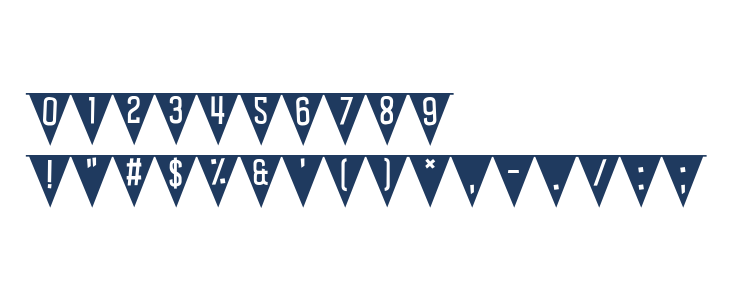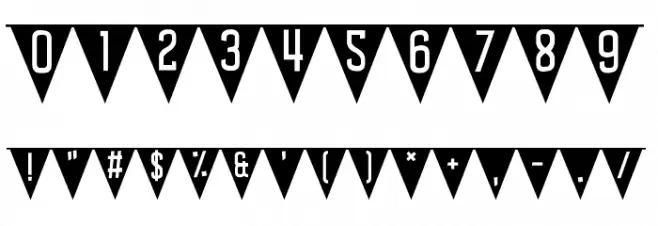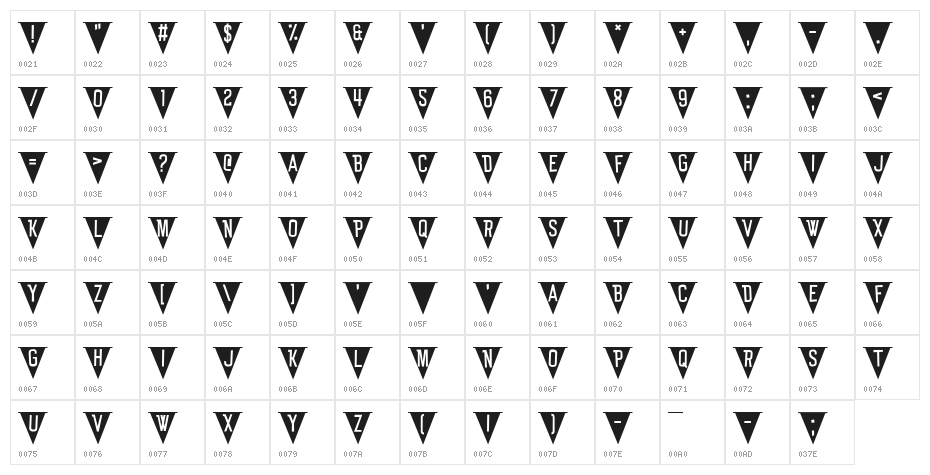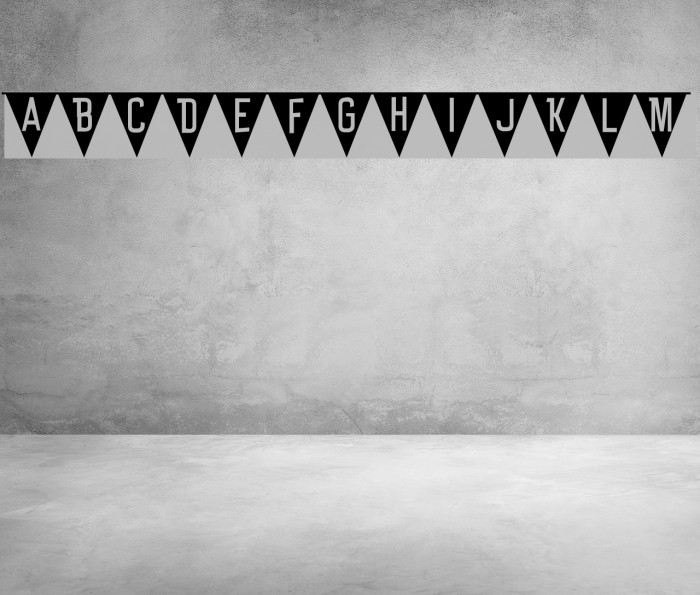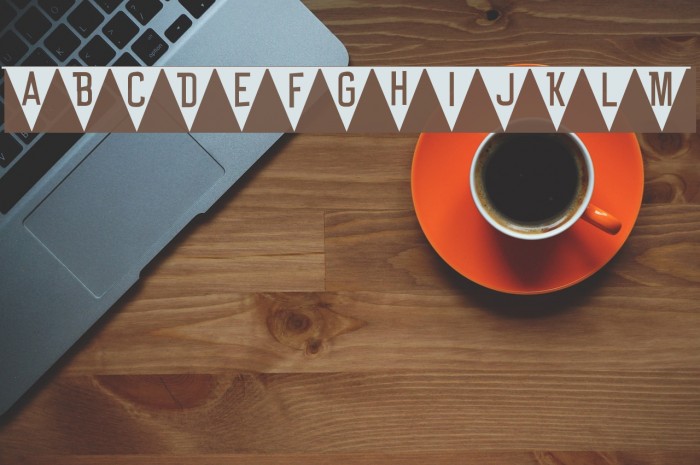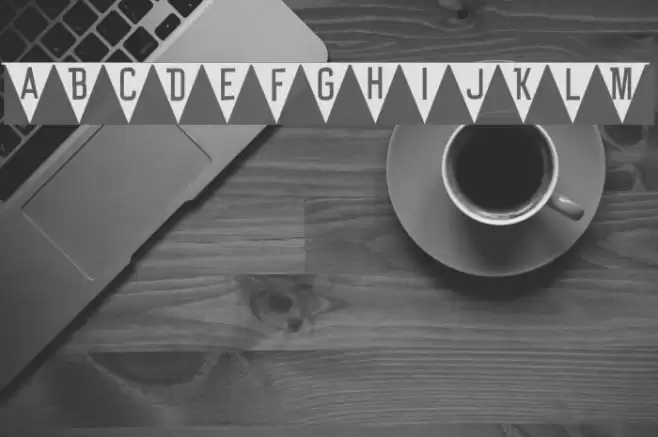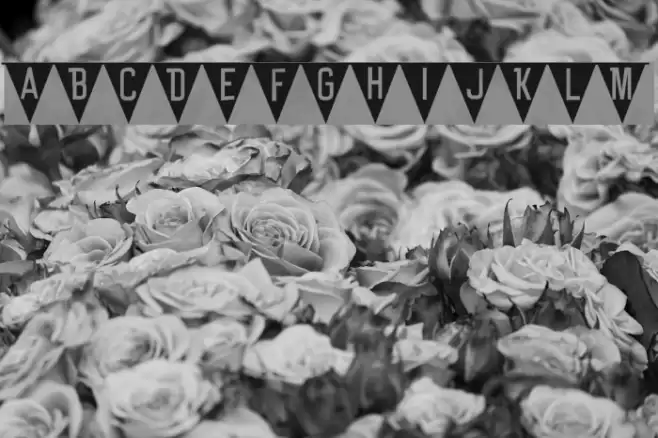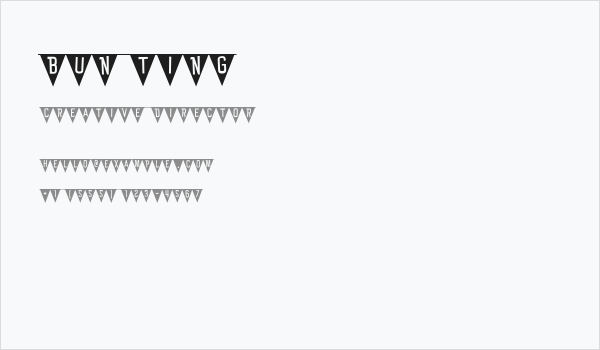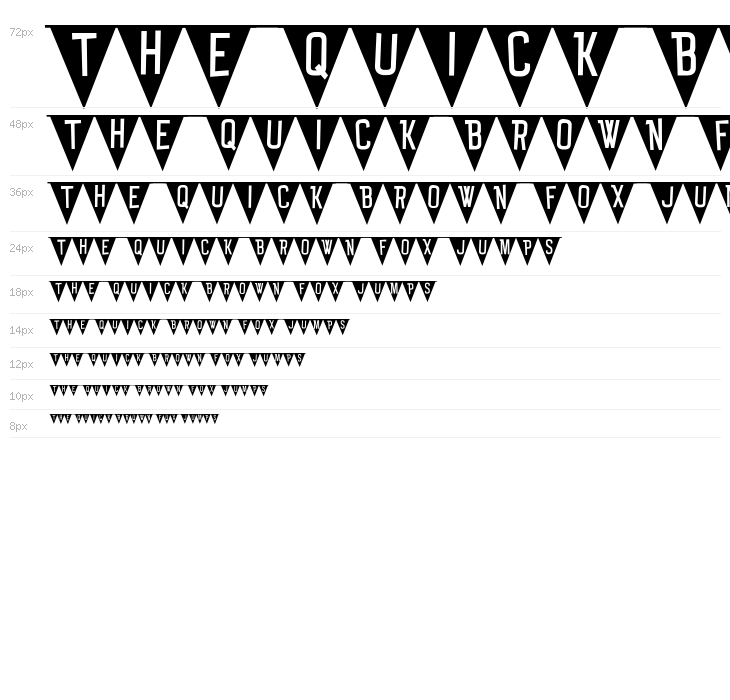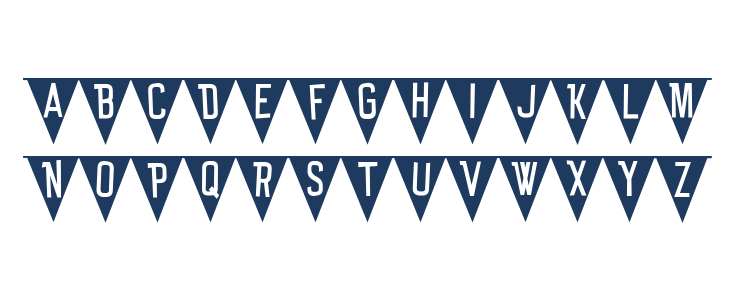
Bun Ting Font
Bun Ting Description
This font features a bold and geometric style, with each character enclosed within a triangular bunting shape. The uppercase and lowercase letters maintain a consistent height, creating a uniform appearance. The numerals and special characters are also designed to fit within the triangular shapes, adding a playful yet structured aesthetic. The font's design is reminiscent of celebratory banners, making it ideal for festive and decorative purposes. The characters are evenly spaced, ensuring readability while maintaining the unique triangular motif.
| Proposed Projects | Ideal for party invitations, event banners, festive posters, and decorative signage. |